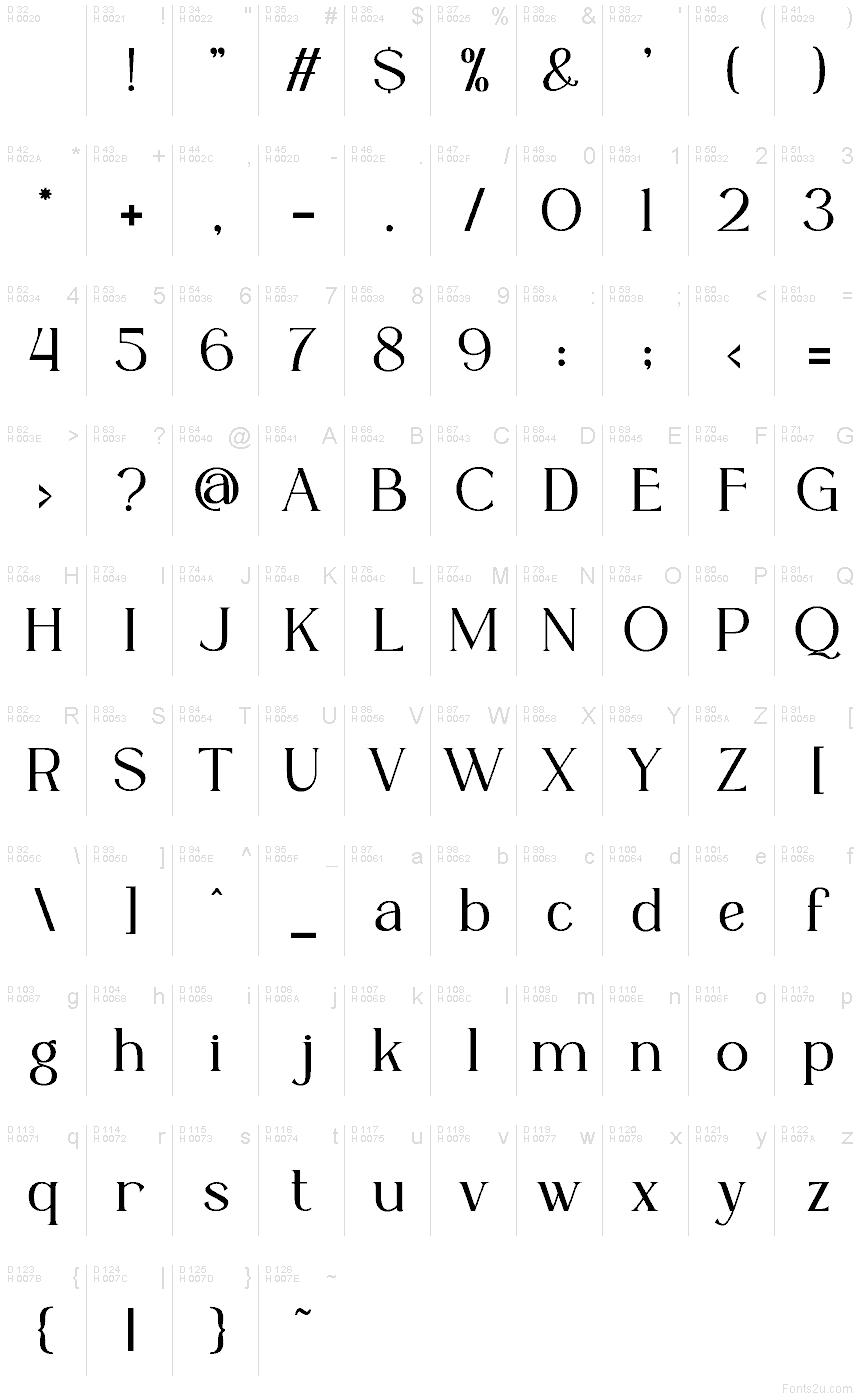
Dudley Castle
Dudley Castle font by PutraCetol Studio is a free elegant serif typeface with a distinctly literary mood. Its tall, refined letters, fine hairlines, and slightly flared strokes feel like something pulled from a classic novel, yet the spacing is clean enough for modern layouts. There’s a crisp tension between the slender details and sturdy verticals that gives every word a quiet confidence, without feeling stiff or old-fashioned.
Using Dudley Castle, your titles and short passages gain a bookish charm that shines on editorial covers, boutique branding, invitations, posters, social media quotes, and refined packaging. This free font handles larger sizes especially well, where its delicate shapes can really breathe. Pair Dudley Castle with a simple geometric sans serif for body copy to keep your layouts balanced and readable.